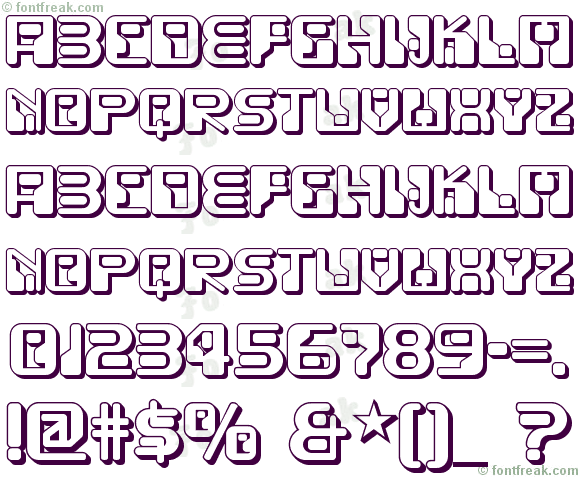
Funky Rundkopf Two NF
Funky Rundkopf NF
About Funky Rundkopf Two NF
Funky Rundkopf Two NF is a distinctive display font designed by Nick Curtis that exudes a vibrant and playful character. This freeware font falls into the category of decorative typefaces, making it an ideal choice for projects that require a bold and unconventional aesthetic. The font features a unique rounded design with a combination of thick and thin strokes, giving it a lively and energetic appearance. The spacing between characters is generous, enhancing its readability while maintaining a fun and whimsical vibe.
The visual characteristics of Funky Rundkopf Two NF include rounded edges and a chunky silhouette that adds a modern yet retro feel. Its playful design makes it suitable for a variety of creative applications. This font is perfect for wedding invitations that aim for a lighthearted touch, movie posters that seek to capture attention, restaurant menus that want to convey a casual dining experience, children's book covers that need an engaging title, and promotional materials for events or festivals that celebrate creativity and fun.
What sets Funky Rundkopf Two NF apart is its ability to blend fun and functionality seamlessly. Its distinctive style not only grabs attention but also communicates a sense of joy and creativity, making it a standout choice for anyone looking to make a memorable impression. Whether you're designing for print or digital media, this font is sure to elevate your project.